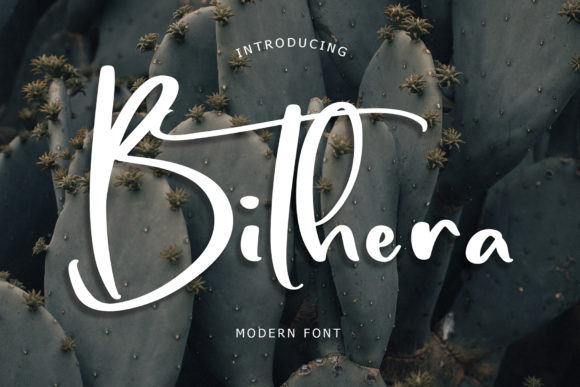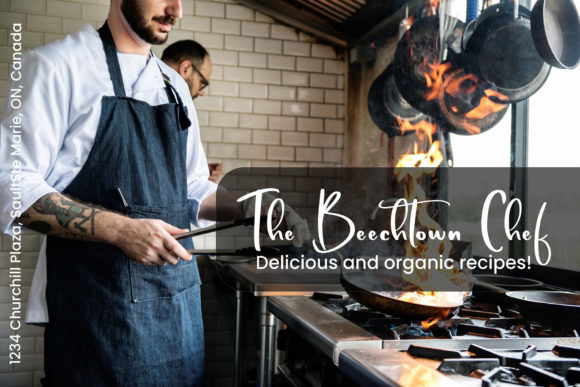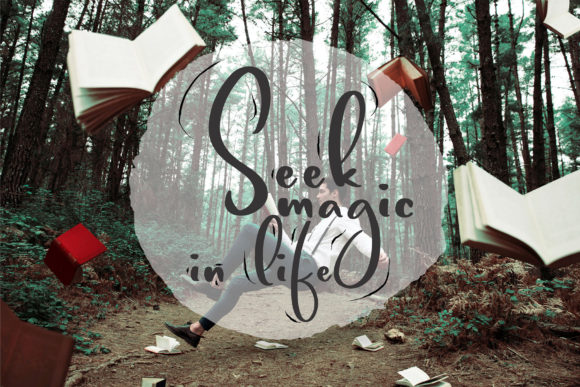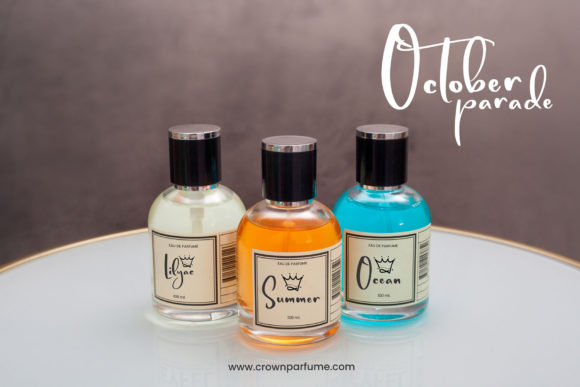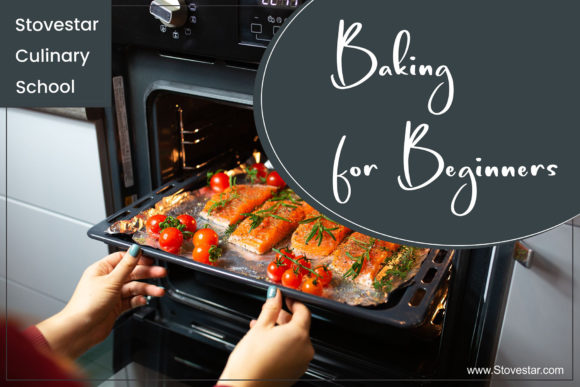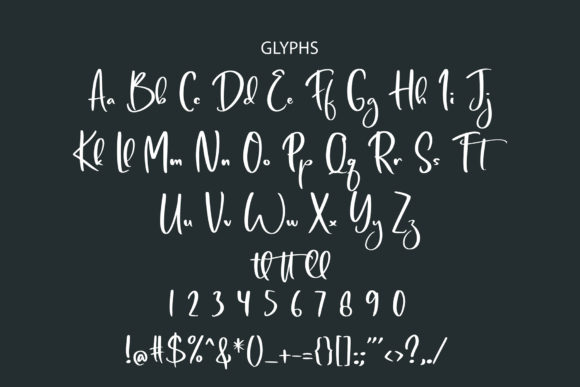
Bithera Font
About Bithera Font
Bithera is a modern and unique handwritten font. Brushed and trendy, this font will be the ideal choice in various circumstances.